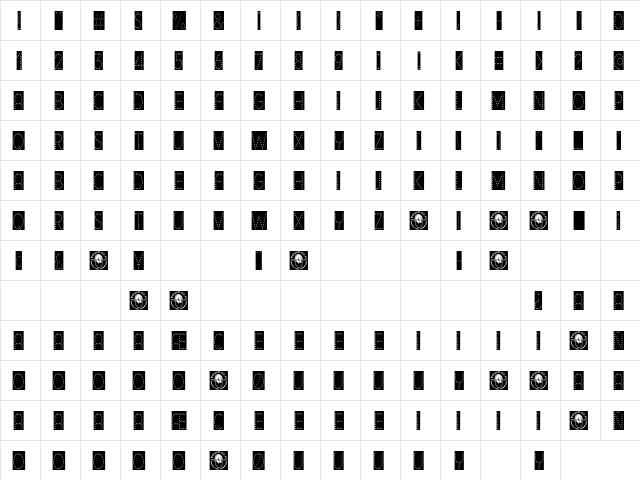
bisturi night club Regular
| Designer | Woodcutter Manero |
Design Context for bisturi night club Typeface
bisturi night club is a composed and adaptable typeface that performs quietly and consistently across a wide range of design contexts.